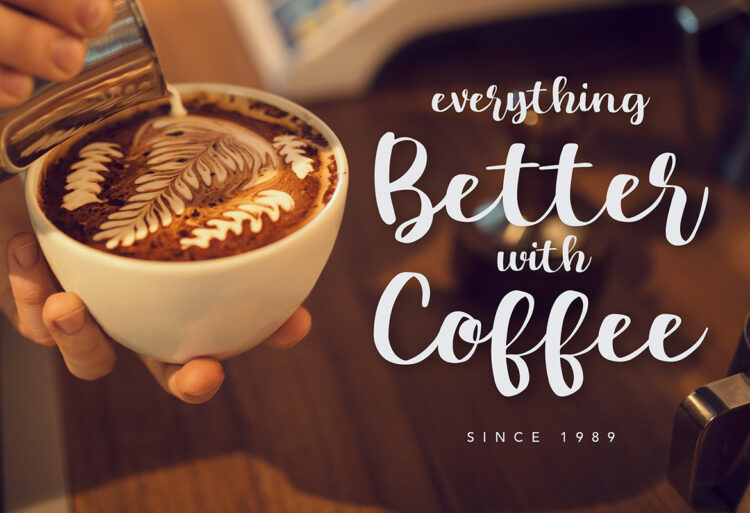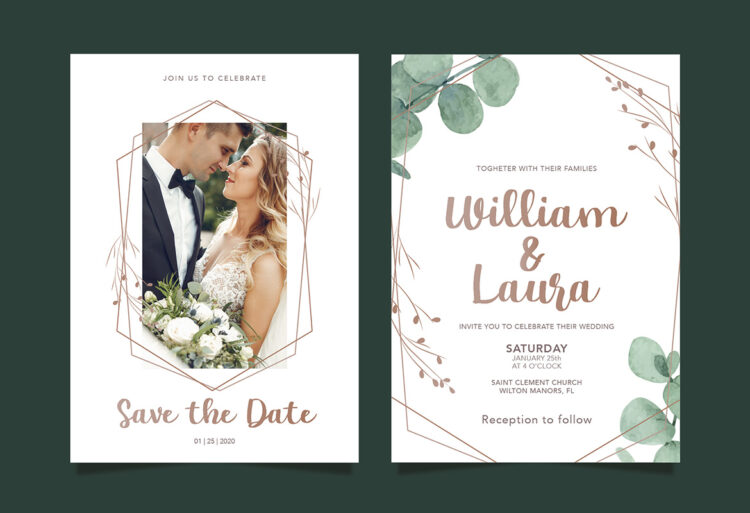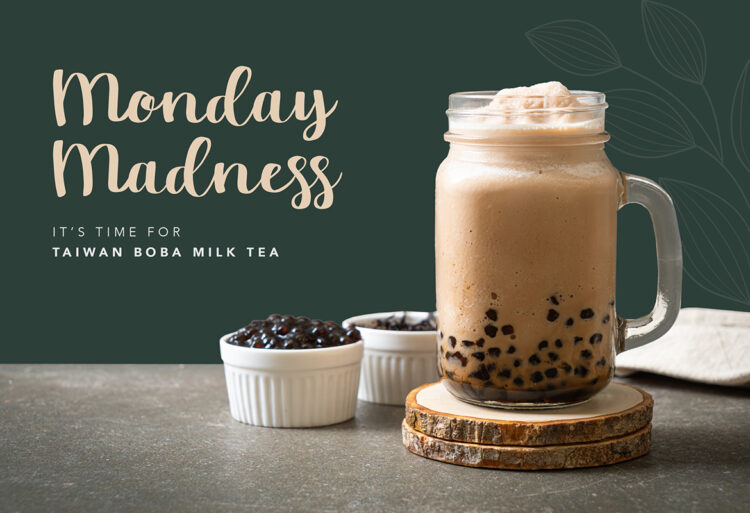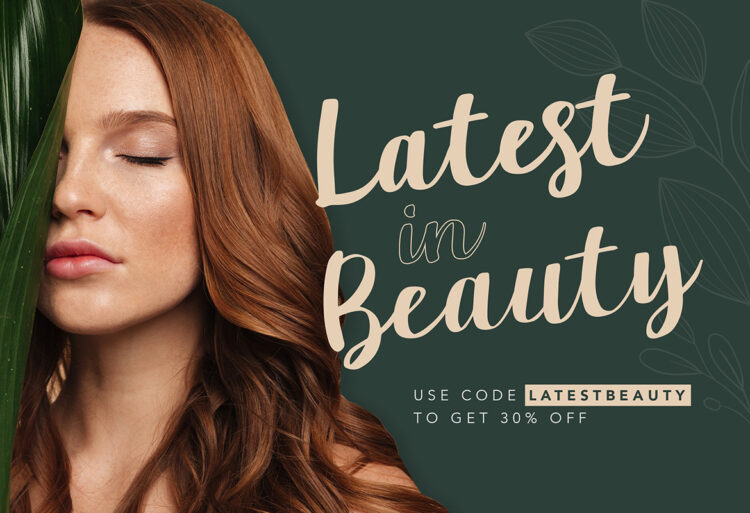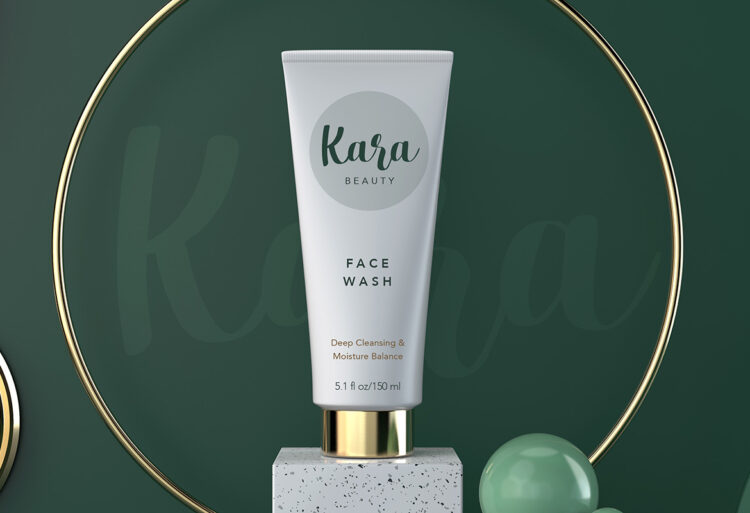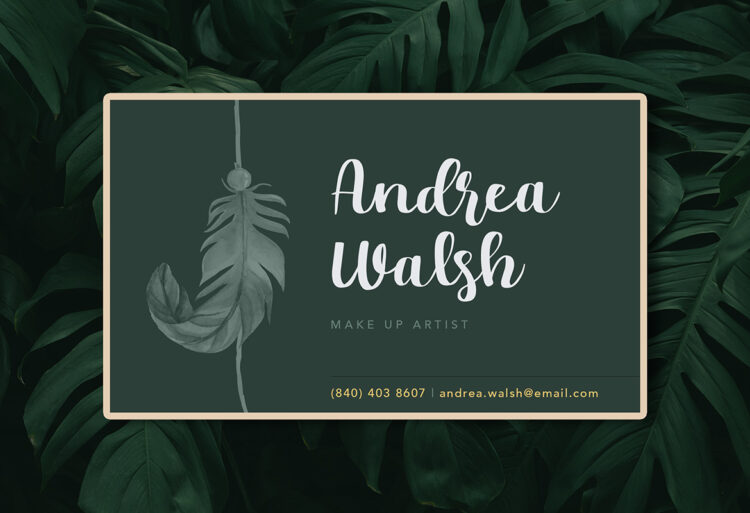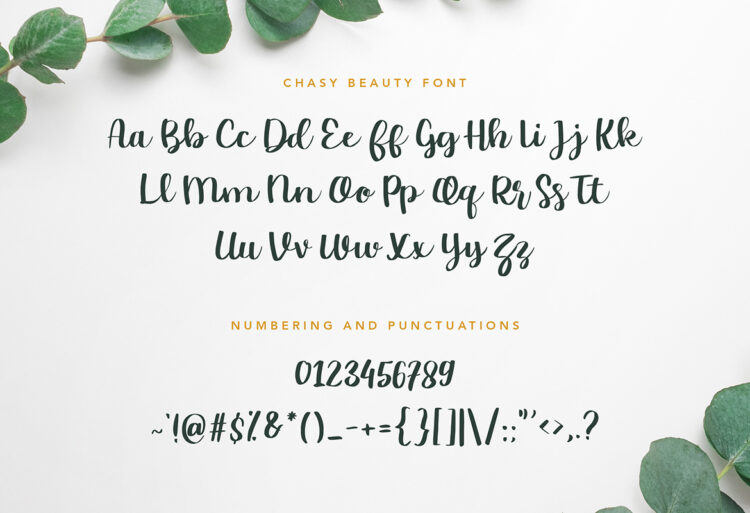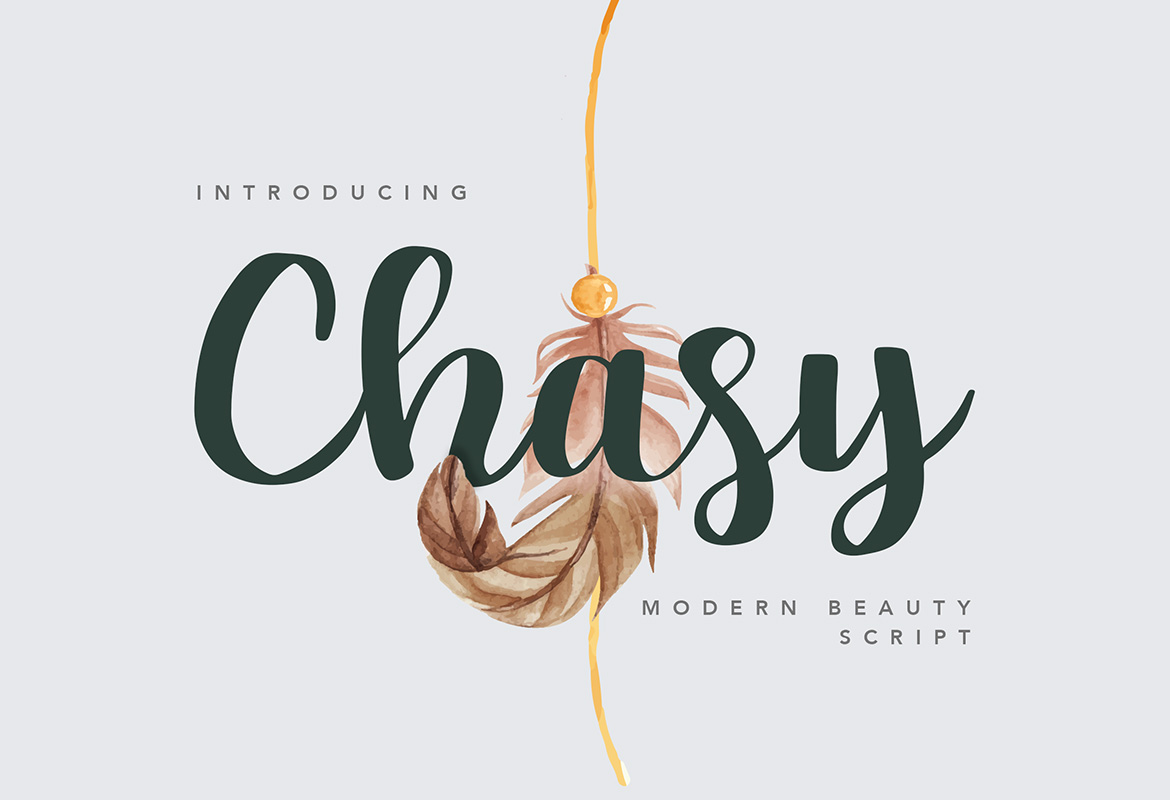
Chasy Beauty Script Font represent a stylish, modern and beautiful yet classic with an elegant feel. It’s perfect for any display project such as product name, logos, presentation, quoted text, coffee-themed and product packaging. With its beauty form and scribble, this font is suitable for fashion and beauty-themed or a stylish text overlay to any background image.
This font package includes uppercase & lowercase letters, numbering 0-9 and complete punctuation that suitable for basic and regular usage. Chasy is available in OTF format file that make it easy to install to your Mac or Windows OS PC.
• Uppercase & Lowercase letters
• Numbering and Punctuation
Chasy Beauty Script Font